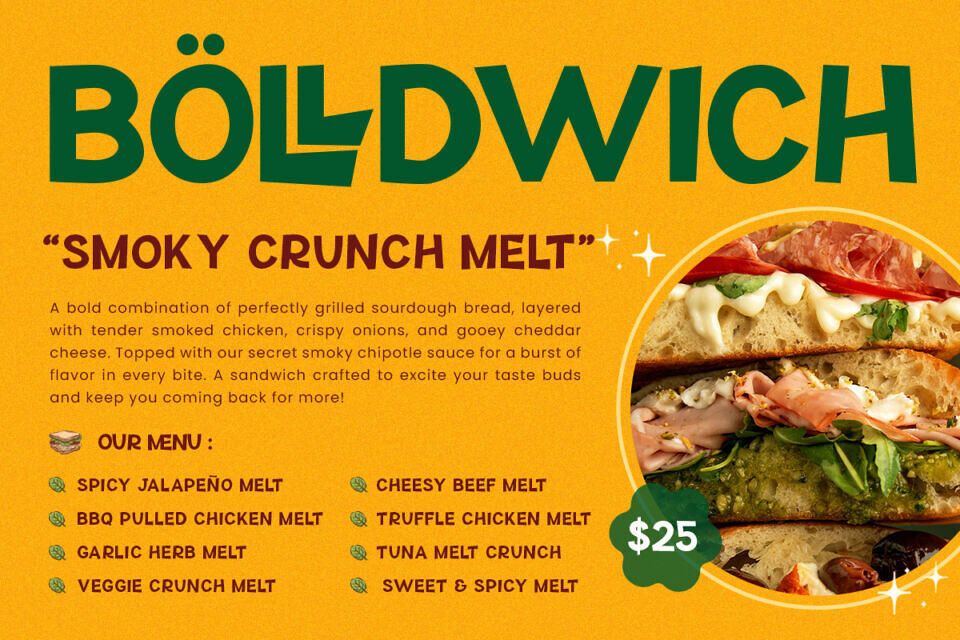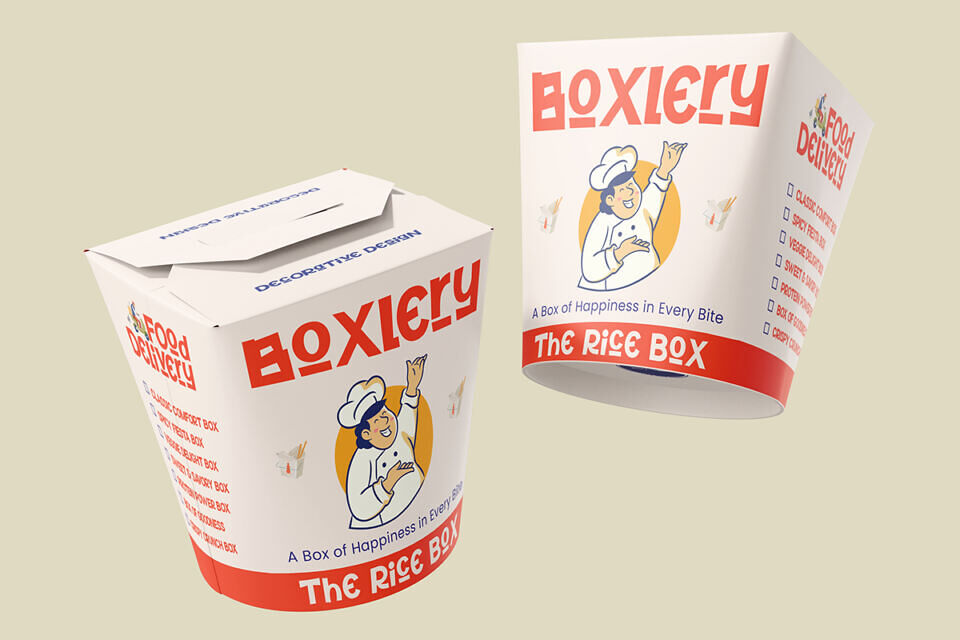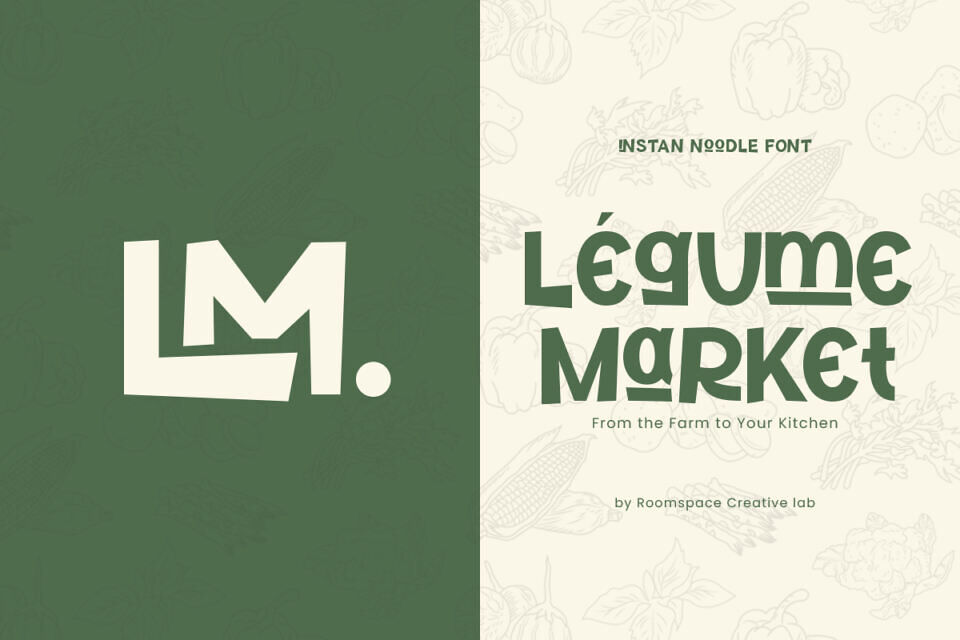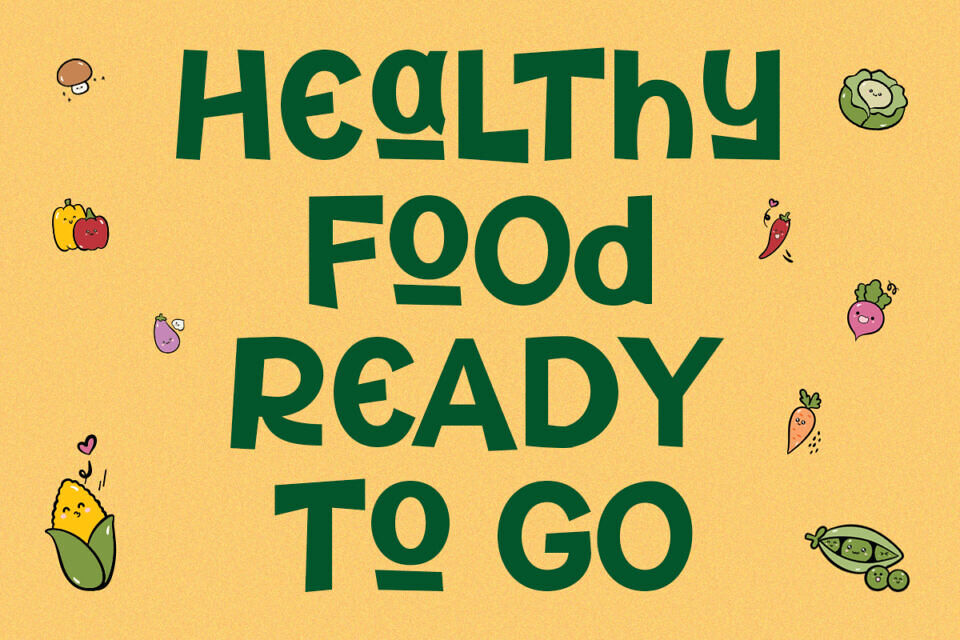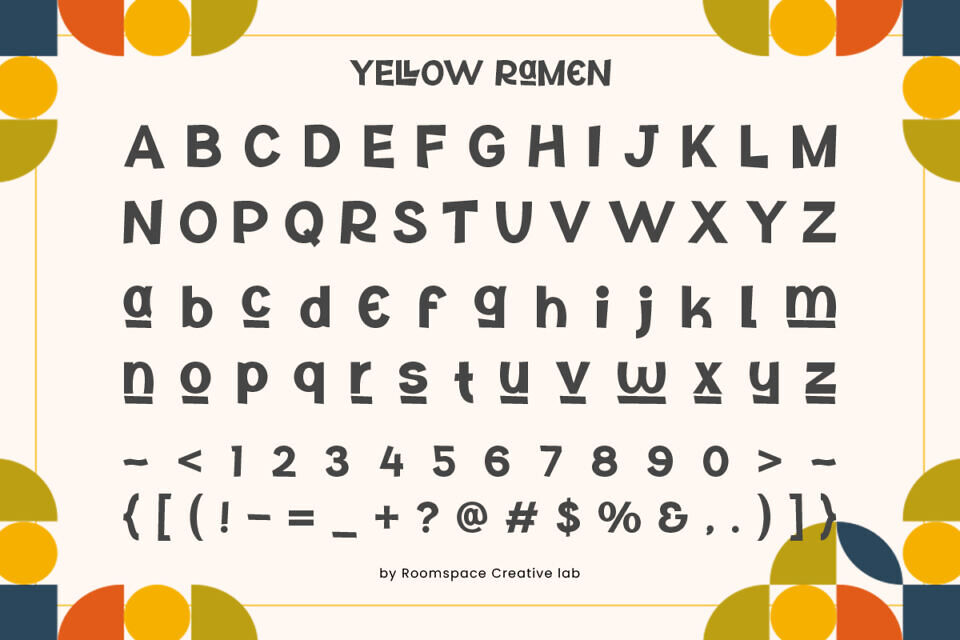
Yellow Ramen Font
Yellow Ramen is a modern decorative font that combines playfulness with bold creativity. Perfectly hand-drawn with a quirky and unique style, this font captures a fun, vibrant aesthetic that’s ideal for adding personality to your designs. Whether you’re creating for branding, logos, websites, or food packaging, Yellow Ramen brings a fresh and youthful vibe to every project.
Designed to stand out, Yellow Ramen is not just a playful font—it’s a versatile tool for designers who want to make a statement. Use it as a quote font to inspire or as a branding font to add a bold and unique character to your visuals. Its cursive, fancy, and cute elements make it equally at home in hand-lettered artwork or elegant designs.